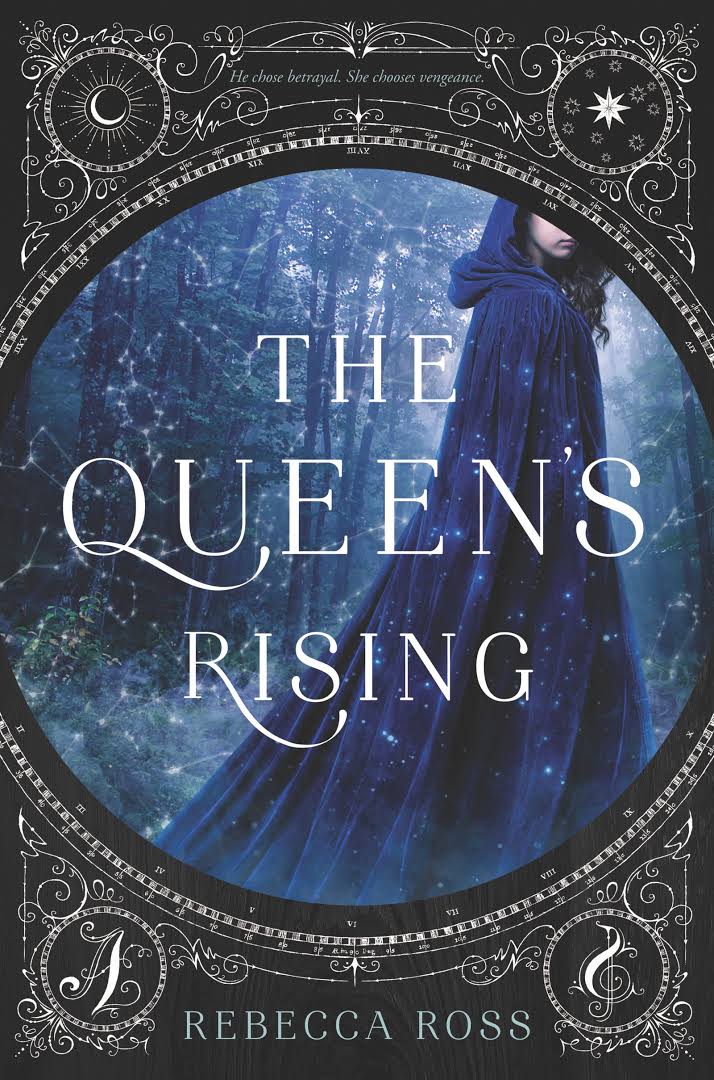
The Queen's Rising Font
BookThe Queen’s Rising is an epic fantasy, novel written by Rebecca Ross. It tells the story of Brienna, a young woman who has been trained her entire life to be a performer in the court of the High King. Despite her talents, she finds herself without patronage until a disgraced lord embroils her in his plot to overthrow the king.
The title and author's name are all written in the Aire typeface by Maximiliano Sproviero. There are seven styles in the Aire display font family, and each one has numerous ligatures and alternates.